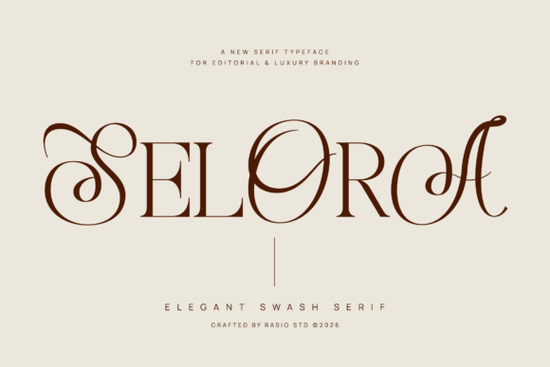
If you are working on a project that calls for timeless refinement, Selora Font brings exactly that level of polish. This elegant swash serif typeface blends sharp, thin serifs with flowing calligraphic swashes, making it a natural choice for luxury branding, high-end packaging, and formal stationery. Unlike many decorative serifs that feel overly ornate, Selora keeps a clean editorial structure while adding graceful flourishes where they matter most.
What kind of projects work best with Selora Font?
Selora was designed with high-impact, sophisticated contexts in mind. It shines in situations where the typography itself becomes a visual statement. Here are some of the most practical applications:
- Magazine and editorial headlines – The high contrast and sharp serifs give headlines a sharp, fashion-forward look. It fits layouts that need a serious, polished voice.
- Luxury logos and branding – If you are building a brand identity for a premium product or service, Selora adds that established, prestige feel without looking outdated.
- Winery and alcohol labels – The swashes and refined letterforms work beautifully on wine bottles, spirits labels, and craft beverage packaging where elegance is expected.
- Perfume and cosmetics packaging – Thin serifs and sweeping strokes evoke a sense of artistry and care, perfect for boutique beauty lines.
- Wedding invitations and formal stationery – Selora brings a romantic yet structured feel to save-the-dates, ceremony programs, and thank-you cards.
- Signature lifestyle products – Think high-end notebooks, luxury candle labels, or premium apparel tags where typography reinforces quality.
How does Selora compare to other serif typefaces?
Most serif fonts fall into either a traditional bookish category or a modern geometric one. Selora sits in a special space between editorial elegance and handcrafted artistry. The razor-thin horizontal serifs give it a sharp, sophisticated appearance, while the calligraphic swashes add a human, flowing rhythm. This makes it more distinctive than a standard serif like Kisvo Font, which offers a cleaner, more neutral serif structure for body text and simpler headers. If you need something with high contrast and strong character, Selora delivers that drama without becoming difficult to read.
For designers who prefer a warmer, more rounded serif, Polyera Font provides a softer alternative with less contrast and friendlier curves. On the other hand, Honey Mango Font brings a playful, decorative serif style that works for lighter branding projects. If you are aiming for a more traditional, regal look, Royal Serif Font offers classic proportions with sturdy serifs. Selora stands apart by combining editorial sharpness with ornamental swashes, giving you a unique tool for projects that need both structure and flourish. You can explore these alternatives and compare them directly with Selora to find the best fit for your specific project.
Can Selora Font work for print-on-demand products?
Absolutely. Print-on-demand sellers will find Selora valuable for products where typography is the main design element. It works especially well on:
- Premium t-shirts and apparel with quote-based or minimalist designs
- Mugs and home decor items featuring elegant phrases or monograms
- Canvas prints and wall art with inspirational text in a refined style
- Tote bags and accessories where a single word or short phrase becomes a statement
- Phone cases with monogram or initial designs
The key is to use Selora for short text segments. Because of its high contrast and decorative swashes, it is best reserved for headlines, single words, or short phrases rather than long paragraphs. For body text, pairing it with a simpler sans serif or a clean serif keeps the overall design balanced.
What font pairs well with Selora?
Since Selora carries a lot of visual personality, the best companions are simpler, more neutral fonts. A clean sans serif like Monday Font offers a nice contrast the script style of Monday Font can complement Selora's swashes without competing. For a more traditional pairing, a straightforward serif without decorative elements works well to let Selora remain the star of the design.
When pairing, keep these tips in mind:
- Use Selora for headlines or display text only
- Choose a neutral partner font for body copy or supporting text
- Avoid pairing it with another decorative or swash-heavy font
- Keep ample spacing around Selora to let its details breathe
Is Selora beginner-friendly for crafters and small business owners?
Yes, with a small caveat. Selora comes as a standard font file that installs easily in design software like Canva, Adobe Illustrator, Photoshop, or Affinity Designer. If you are used to working with fonts, you will have no trouble adding it to your collection. The swashes are built into the font, so you do not need special skills to access them they appear as standard characters or ligatures depending on the software you use.
For crafters using Cricut or Silhouette machines, Selora works well for vinyl projects, card making, and custom gifts. Just keep in mind that the thin serifs and swashes may require careful cutting at smaller sizes. Test a sample before committing to a large production run.